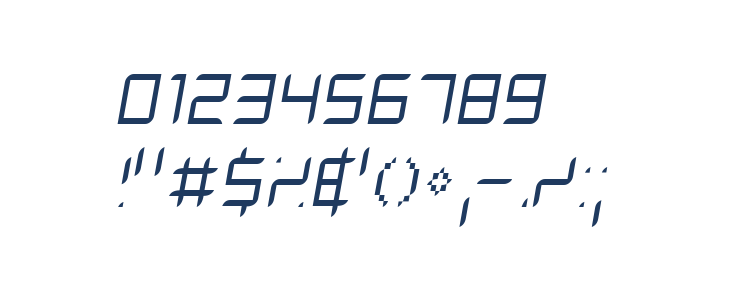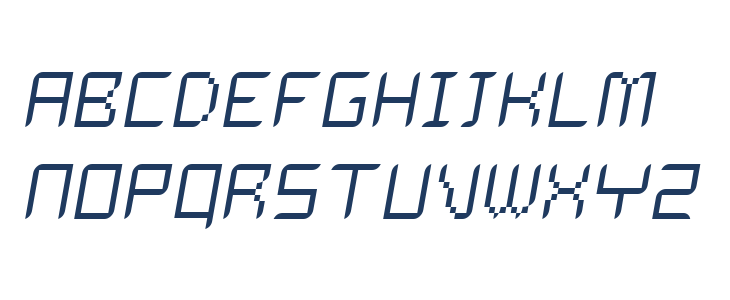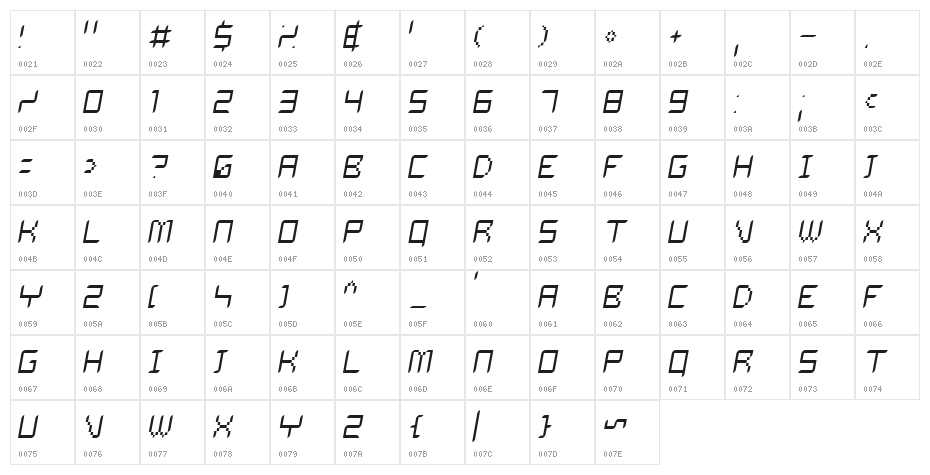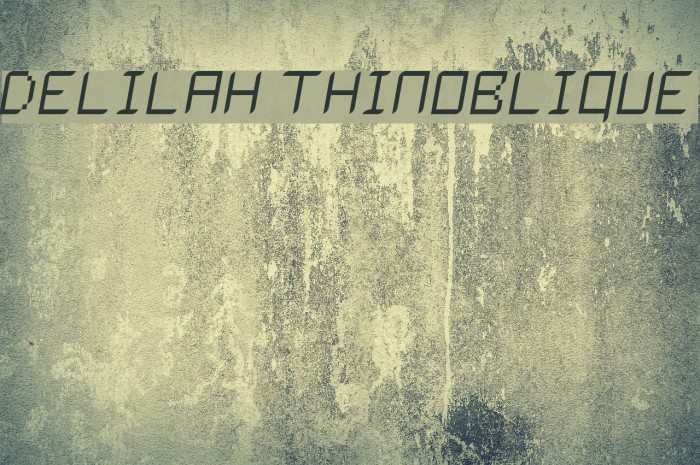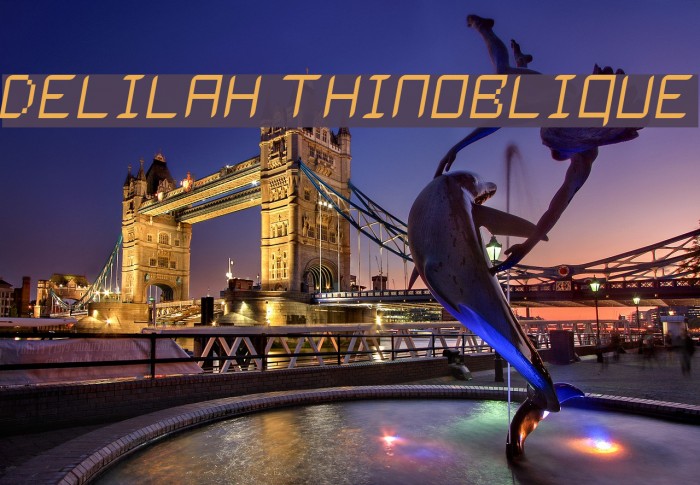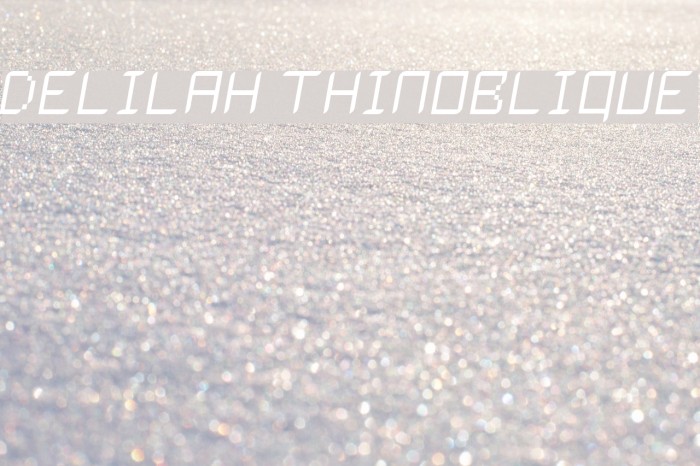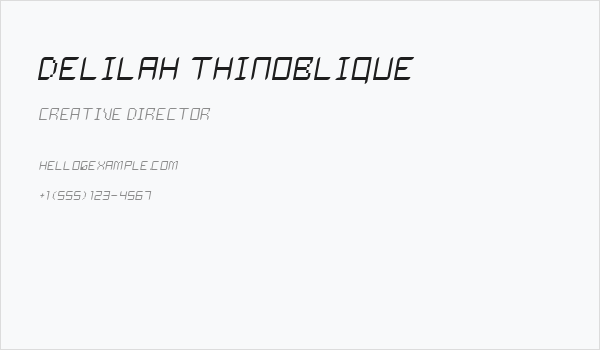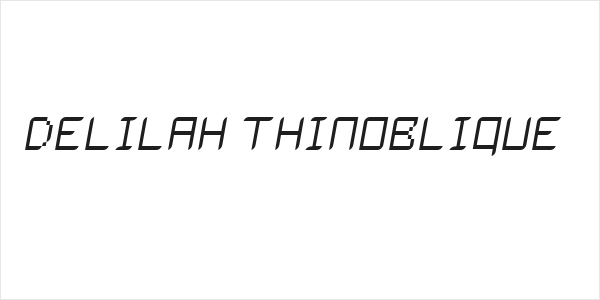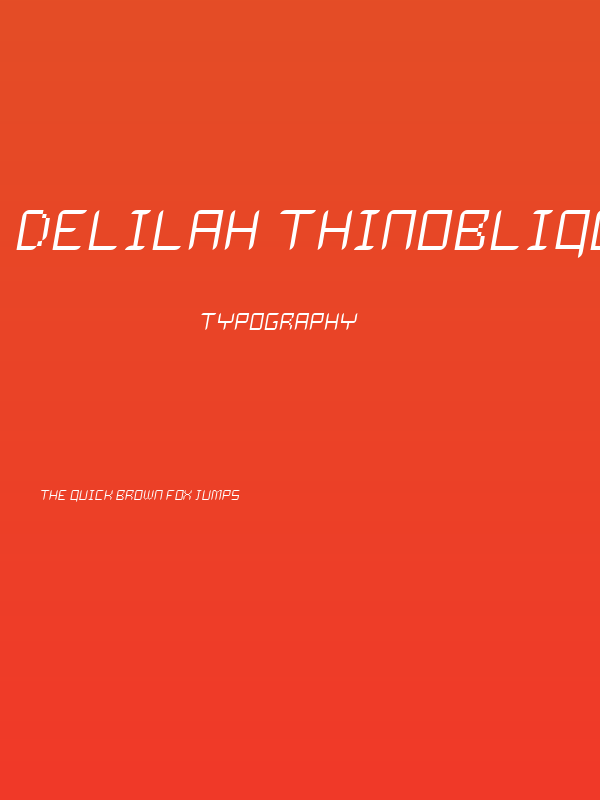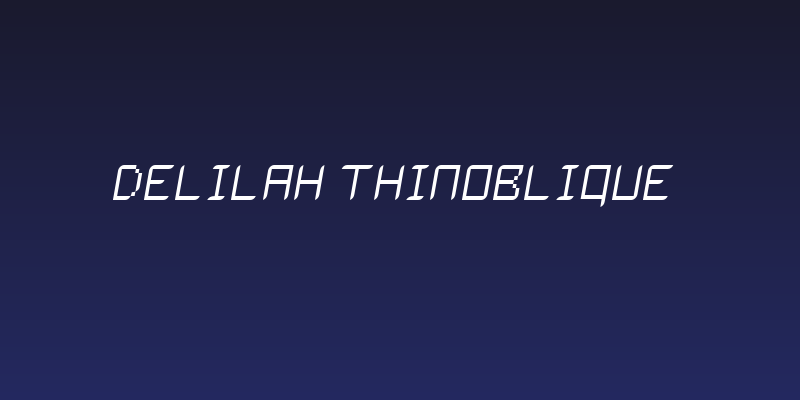
Delilah ThinOblique Font
Delilah ThinOblique Description
This font features a sleek, modern design with a thin, oblique style that gives it a dynamic and futuristic appearance. The characters are slightly slanted, adding a sense of motion and energy. The font maintains a consistent stroke width throughout, contributing to its clean and streamlined look. The geometric shapes of the letters are sharp and angular, which enhances its contemporary feel. The spacing between characters is normal, ensuring readability while maintaining its stylish aesthetic. This font is well-suited for projects that require a modern and cutting-edge look.
Use CaseHeadlines, Logos, Digital Interfaces
Proposed ProjectsIdeal for tech branding, modern advertising, futuristic posters, and digital interfaces.